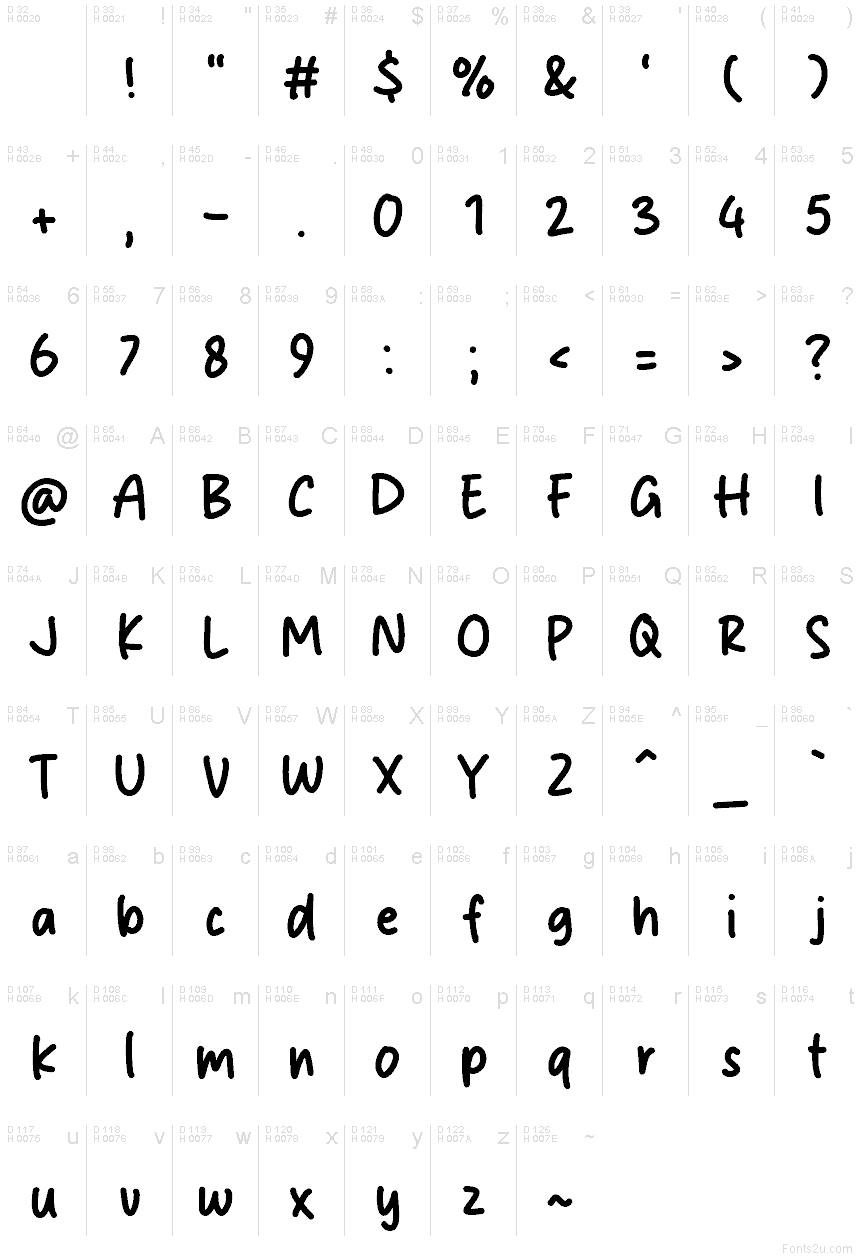
Cake Nut
Cake Nut font by MJType is a free handwritten font with a soft, inky bounce that feels straight out of a bakery chalkboard. The rounded strokes are plump and friendly, with just enough wobble to feel human without slipping into messy. Letters sit close and cozy, creating a warm, approachable rhythm that instantly suggests frosting, sprinkles, and handwritten notes tucked into gift boxes.
Using Cake Nut is a natural fit for bakery branding, café menus, dessert packaging, kids’ party invitations, sweet quote posts, and playful product labels. This free font shines when used large, where its brushy texture and lively curves can really breathe. Pair Cake Nut with a clean sans-serif for small body text to keep things readable while letting the handwritten style handle all the charm and personality.